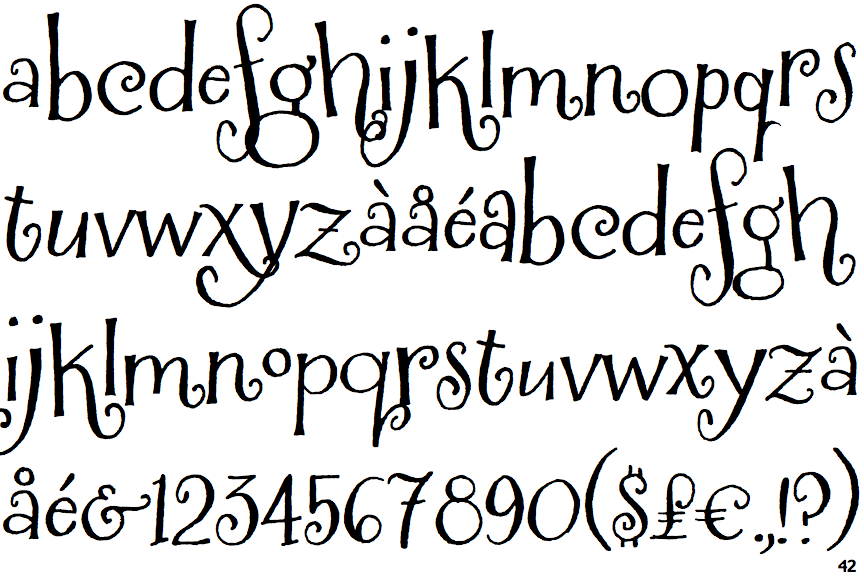
Henparty Sans
Originally created as a logo for an online tea store.
Designer: Crystal Kluge Year: 2008 Publisher: Tart Workshop No upper-case characters. |